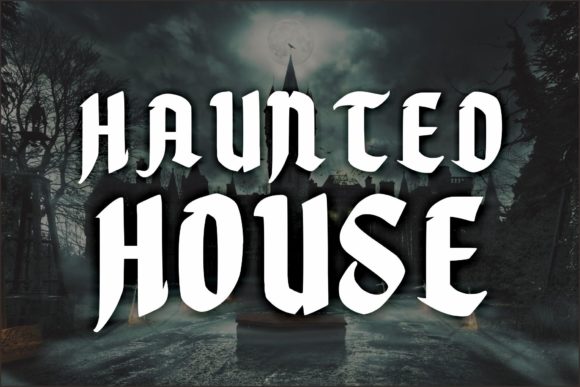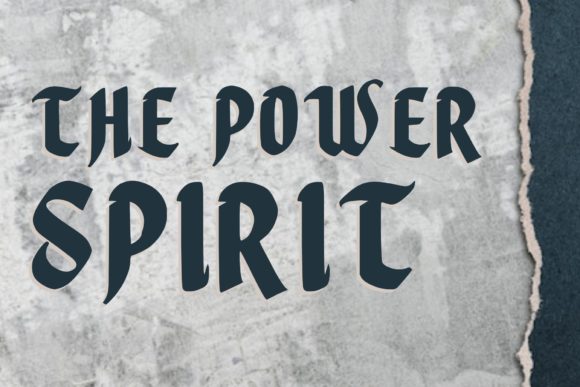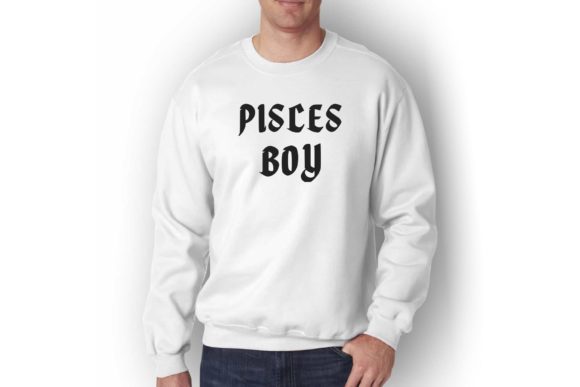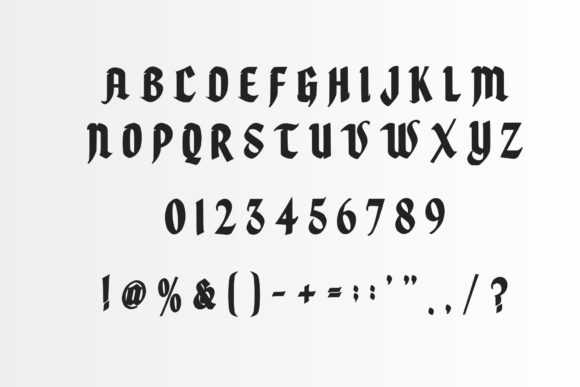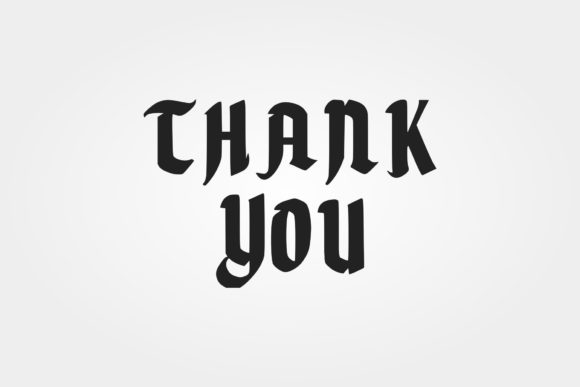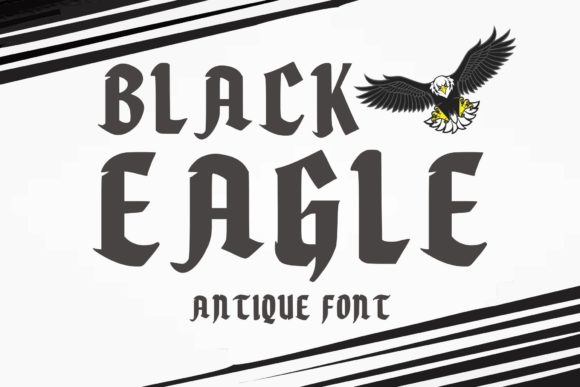
Unleash the Power of Black Eagle Font: Elevate Your Designs with a Bold and Distinctive Display Font
Are you on the hunt for a font that exudes elegance, sophistication, and a touch of antiquity? Look no further than the Black Eagle Font. This bold, distinct, and antique display font is perfect for designers and crafters seeking to add a unique flair to their projects. With its fancy curls and ornate details, Black Eagle is sure to make a statement and leave a lasting impression.
What Makes Black Eagle Font Stand Out?
Black Eagle Font boasts a range of features that set it apart from other display fonts on the market. Its bold and distinctive design makes it perfect for creating short titles, headings, and captions that demand attention. The font’s fancy curls add an extra layer of sophistication, giving your designs a touch of luxury and refinement.
One of the standout features of Black Eagle Font is its versatility. It works beautifully on both dark and light backgrounds, making it easy to incorporate into a wide range of design projects. Whether you’re creating a logo, brochure, or social media graphic, Black Eagle Font is sure to make a striking impression.
The Benefits of Using Black Eagle Font
So why choose Black Eagle Font for your next design project? Here are just a few benefits of using this exceptional display font:
- Elegance and Sophistication: Black Eagle Font exudes elegance and sophistication, making it perfect for high-end designs and luxury brands.
- Versatility: The font works beautifully on both dark and light backgrounds, giving you maximum flexibility when it comes to design.
- Attention-Grabbing: With its bold and distinctive design, Black Eagle Font is sure to grab attention and leave a lasting impression.
How to Use Black Eagle Font in Your Designs
Black Eagle Font is perfect for a wide range of design projects, including:
- Logos and Branding: Use Black Eagle Font to create a bold and memorable logo that sets your brand apart.
- Brochures and Flyers: Add a touch of elegance and sophistication to your marketing materials with Black Eagle Font.
- Social Media Graphics: Make your social media graphics stand out with Black Eagle Font’s bold and attention-grabbing design.
- Packaging and Labels: Use Black Eagle Font to add a touch of luxury and refinement to your packaging and labels.
Tips and Tricks for Getting the Most Out of Black Eagle Font
To get the most out of Black Eagle Font, here are a few tips and tricks to keep in mind:
- Use it Sparingly: Black Eagle Font is bold and attention-grabbing, so use it sparingly to avoid overwhelming your design.
- Experiment with Colors: Try pairing Black Eagle Font with different colors to create a unique and eye-catching effect.
- Mix and Match: Combine Black Eagle Font with other fonts to create a unique and visually appealing design.
In conclusion, Black Eagle Font is a bold, distinct, and antique display font that’s perfect for designers and crafters seeking to add a touch of elegance and sophistication to their projects. With its fancy curls and ornate details, Black Eagle Font is sure to make a statement and leave a lasting impression. Whether you’re creating a logo, brochure, or social media graphic, Black Eagle Font is a versatile and attention-grabbing choice that’s sure to elevate your designs.